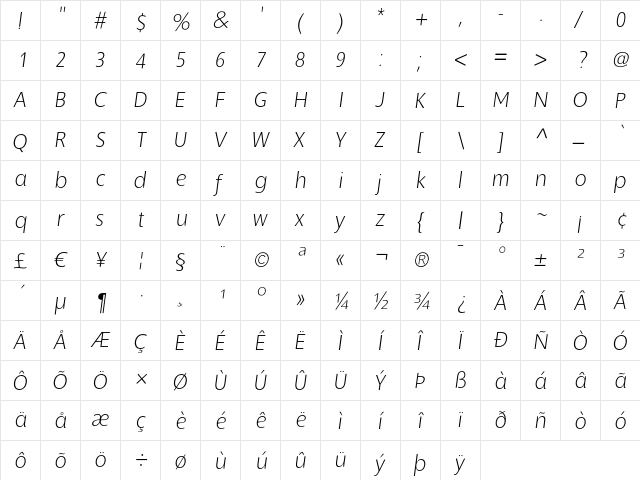
Slippy LightItalic Font Preview
Slippy LightItalic
Slippy LightItalic Font Details
Design Context for Slippy Typeface
Slippy offers clean, dependable letterforms without strong stylistic allegiance, making it a practical choice for designers who need flexibility. The slanted form adds forward momentum and visual energy. Its slender proportions lend an understated elegance to any composition.
Pro Tip: Try Slippy for annotation and caption copy alongside an upright companion — the contrast in angle creates a dynamic but ordered typographic system.